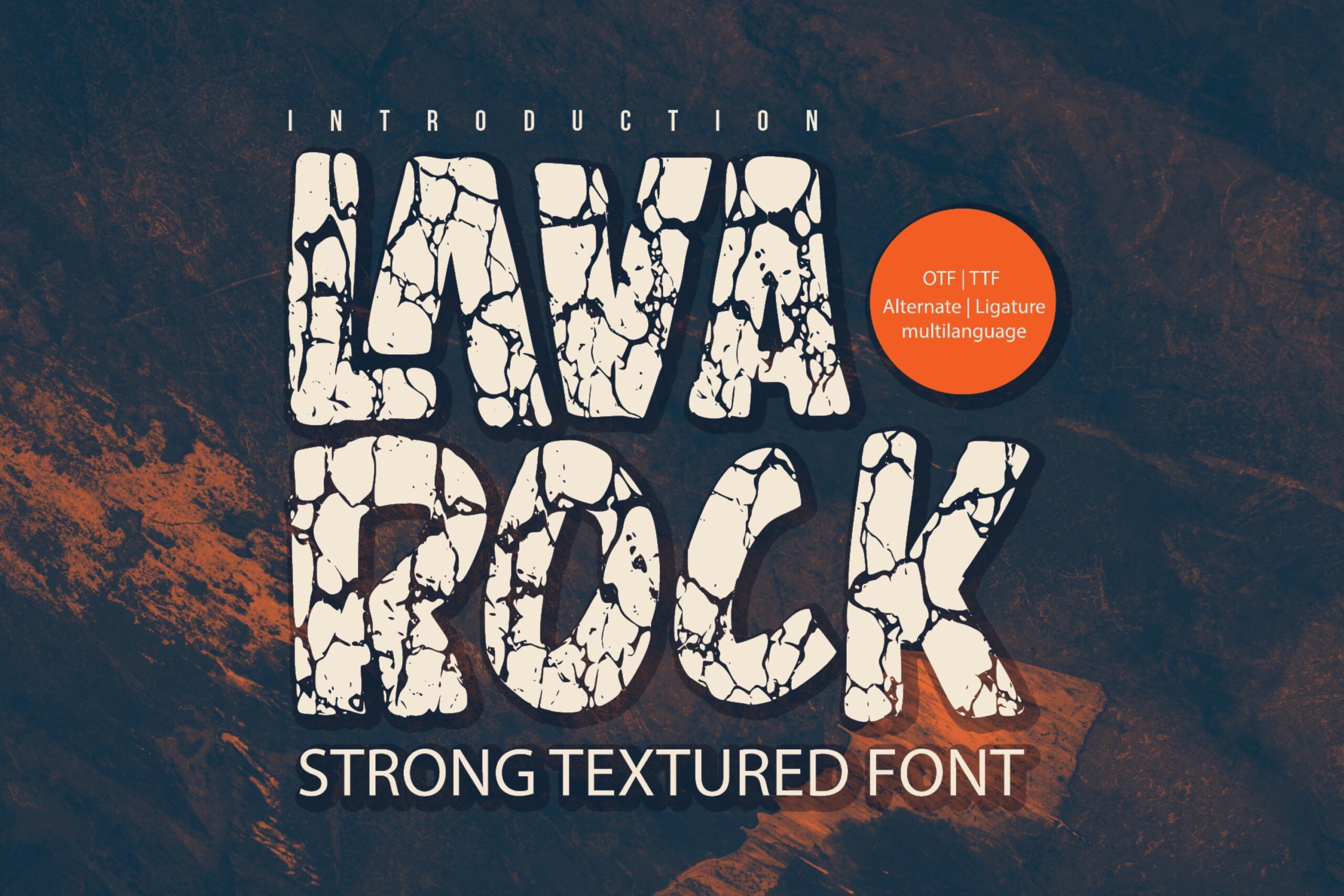
LAVAROCK – Strong Textured Font , authentic style and dramatic movement that is written casually and quickly.
The best for poster,project , designs look modern, unique and fun. It’s perfect for labels, quotes, posters, DIY projects, branding, packaging, greeting cards, websites, photography overlays, signs, scrapbooking, tags and so much more! That is why LAVAROCK has a authentic, and unique characteristic more natural look. You can activate Ligatures and Alternates glyphs OpenType panel.